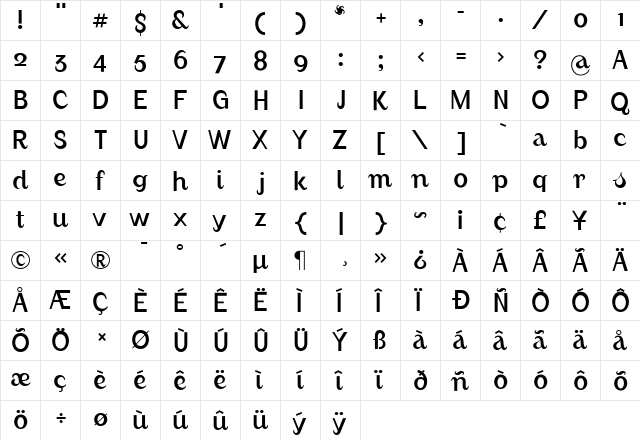
August Regular Font Preview
August Regular
August Regular Font Details
Design Context for August Typeface
August offers clean, dependable letterforms without strong stylistic allegiance, making it a practical choice for designers who need flexibility.
Pro Tip: Pair August with a font of contrasting weight or personality to build a more expressive typographic hierarchy.